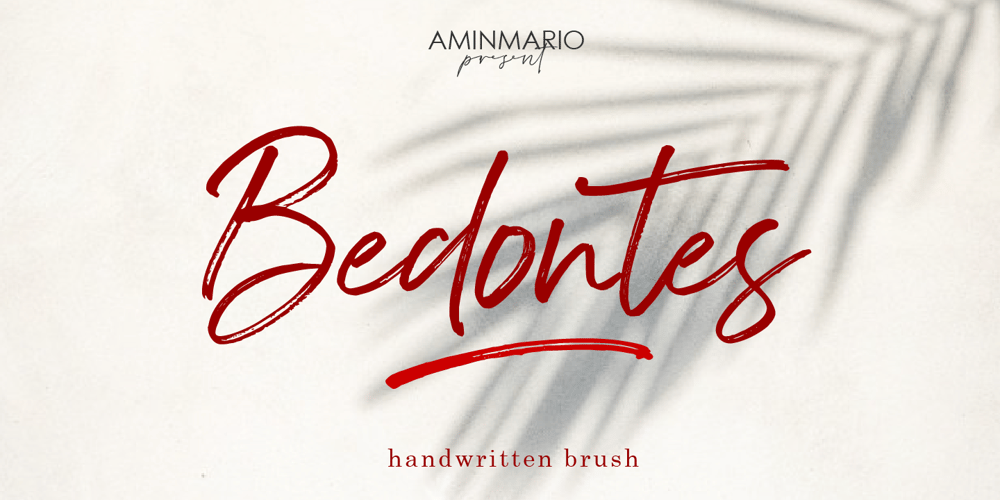
Bedontes Font Family was designed by Amin Maryono and published by Aminmario Studio. Bedontes contains 2 styles and family package options. Bedontes is an unique handwritten brush font. Created with brush pen to give a great contrast between thick and thin curves. Drawn, Scanned & Vectorized from paper to screen. I wanted to create an authentic brush typeface leaving the texture and imperfections the way they are, but perfect for any awesome project that need hand writing taste.Comes with regular and italic, also support multilingual. This is suitable for branding, header, quotes, invitations, stationery, wedding design, logos, watermarks on photography, signatures, advertisement, album covers, business cards, clothing, magazines, posters, and more!Thanks for checking out this font. I hope you enjoy it!